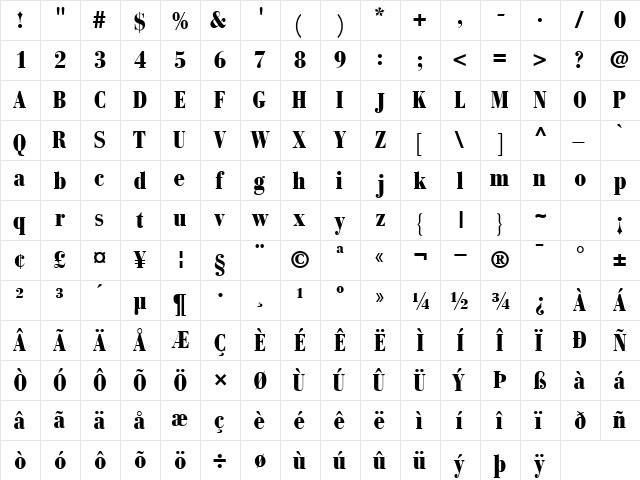
BodoniRecutBlackCondensedSSK Regular Font Preview
BodoniRecutBlackCondensedSSK Regular
BodoniRecutBlackCondensedSSK Regular Font Details
Design Context for BodoniRecutBlackCondensedSSK Typeface
BodoniRecutBlackCondensedSSK takes a measured approach to typography — its balanced proportions and neutral character make it a reliable workhorse for both digital and print work. Its narrow stance lets it pack a punch even in space-constrained designs.